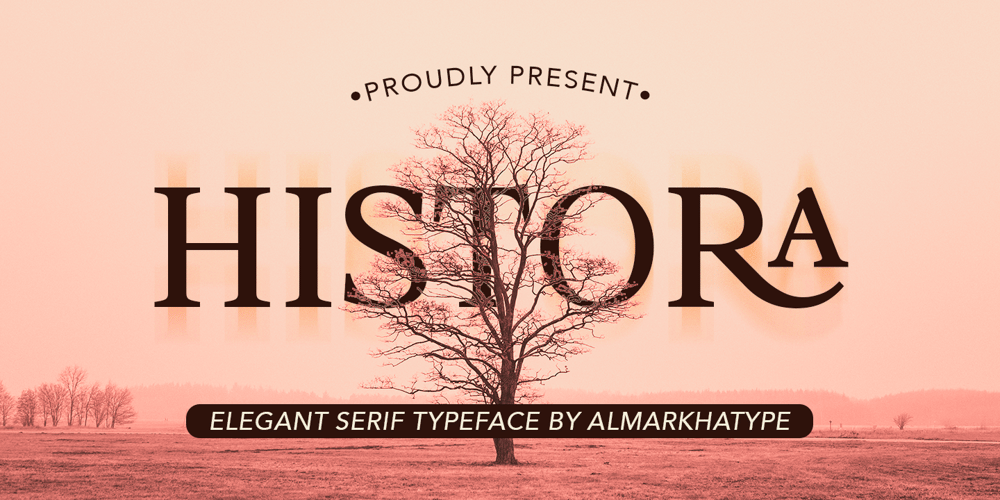
Histora Font Family was designed by Abdul Malik Wisnu, Rivo Dwi Adriansyah and published by Almarkha Type. Histora contains 1 styles and family package options. Discover Histora, a captivating medium-contrast flared serif font that blends classic typeface elements with influences from early Latin-based handwriting.In this unique font, the lowercase letters are reimagined as modernized versions of Carolingian minuscules. Their vertical stems gracefully touch the baseline, with a subtle horizontal cut for a contemporary twist while retaining a calligraphic style in the terminals and stroke ends.Explore further to find the uppercase letters, featuring flared serifs inspired by Roman inscriptional capitals. Histora’s letters speak of timeless elegance and artistic evolution, making it an excellent choice for projects seeking a blend of history and modernity.Ideal for branding, editorial design, invitations, and more, Histora stands out with its blend of classic and contemporary styles. Elevate your designs with Histora’s charm and sophistication, where each letter tells a story of its own.